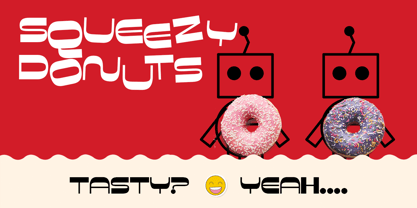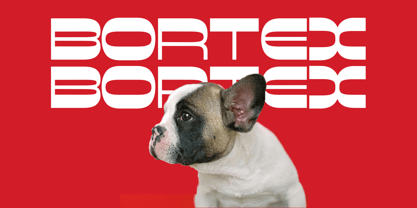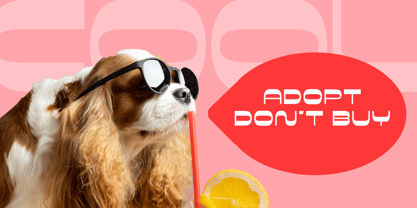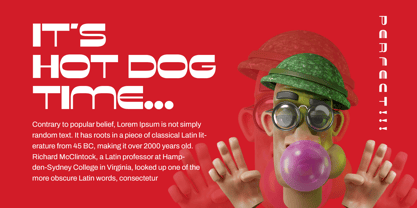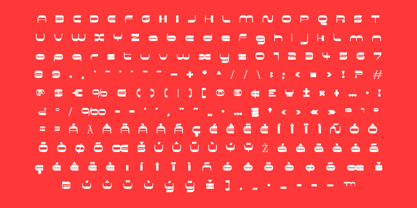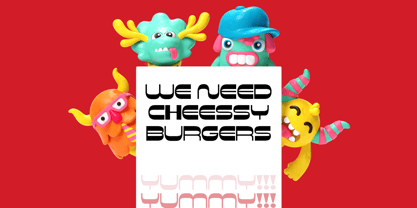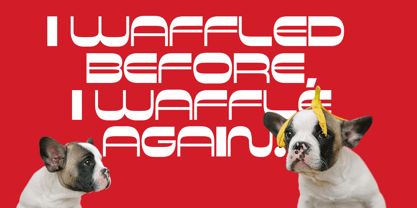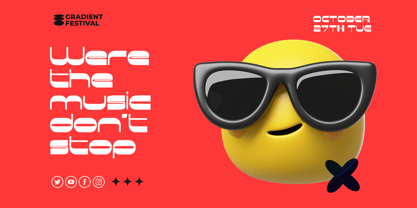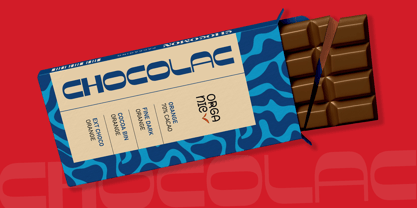
Bortex Display
The Bortex Display Font Family was designed by Evin Tony and published by FoxType. Bortex Display contains 1 styles.
Braxto is a playful and vibrant display font designed to bring a burst of joy to your creative projects. Perfect for funny posters, cheerful banners, party invitations, social media graphics, kids’ designs, and more, Braxto combines a modern look with a cute and happy vibe that instantly grabs attention.
This unique typeface blends bold curves and quirky shapes to convey energy, warmth, and creativity—making it ideal for brands and creators looking to express fun, friendliness, and approachability.
✔️ Features: Perfect for funny, cute, and modern design styles
Great for posters, banners, merchandise, and web use